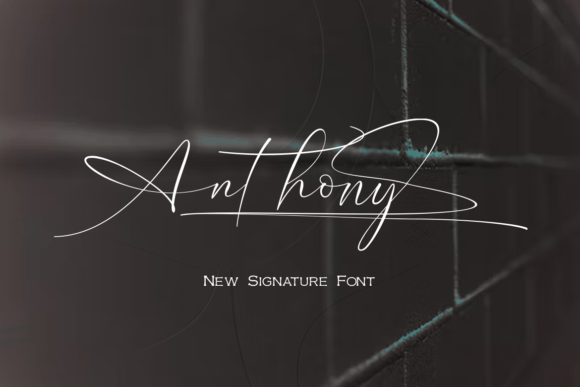
Introducing Anthony Font: The Ultimate Handwritten Font for Creative Projects
Are you a designer, crafter, or creative enthusiast looking for a beautiful and modern handwritten font to elevate your projects? Look no further than Anthony Font! This stunning font is perfect for a wide range of applications, including branding, photography, invitations, quotes, watermarks, advertisements, labels, and more.
What Makes Anthony Font So Special?
Anthony Font is a carefully crafted handwritten font that exudes elegance and sophistication. Its modern design makes it perfect for projects that require a touch of personality and style. Whether you’re creating a brand identity, designing an invitation, or adding a quote to a photograph, Anthony Font is the perfect choice.
One of the standout features of Anthony Font is its PUA (Private Use Area) encoding. This means that you can access all the glyphs and sweeps easily, giving you complete creative control over your project. With PUA encoding, you can effortlessly insert special characters, ligatures, and other unique elements that will take your design to the next level.
Anthony Font is incredibly versatile, making it suitable for a wide range of creative projects. Here are just a few ideas to get you started:
- Branding: Use Anthony Font to create a unique and memorable brand identity that sets you apart from the competition.
- Photography: Add a touch of elegance to your photographs with beautiful quotes, captions, or watermarks.
- Invitations: Create stunning invitations for weddings, parties, or other special events.
- Advertisements: Use Anthony Font to create eye-catching ads that grab attention and leave a lasting impression.
- Labels: Design beautiful labels for products, packaging, or marketing materials.
Why Choose Anthony Font?
With so many fonts available, why choose Anthony Font? Here are just a few reasons why designers and crafters love this amazing font:
- Unique and Modern Design: Anthony Font boasts a fresh and contemporary design that’s sure to turn heads.
- Ease of Use: With PUA encoding, you can easily access all the glyphs and sweeps, making it simple to use and customize.
- High-Quality: Anthony Font is crafted with precision and attention to detail, ensuring a high-quality finish.
- Versatility: This font is suitable for a wide range of projects, from digital designs to print materials.
Get Creative with Anthony Font
Ready to unleash your creativity with Anthony Font? Whether you’re a seasoned designer or a crafty enthusiast, this amazing font is sure to inspire you to create something truly special. With its modern design, PUA encoding, and endless creative possibilities, Anthony Font is the perfect addition to your font library.